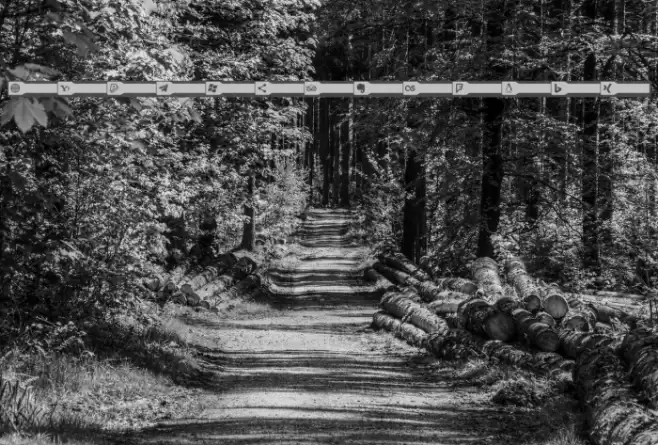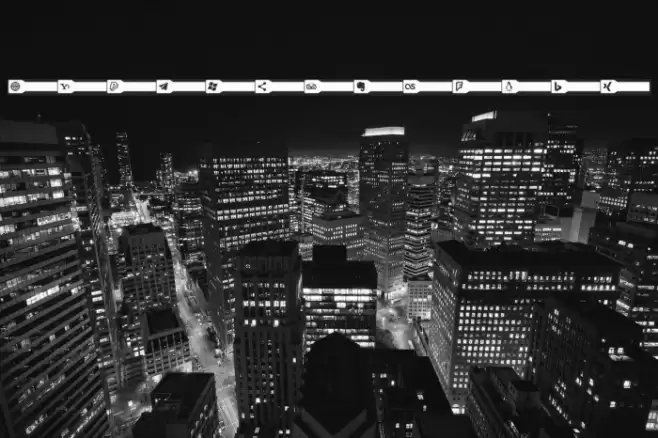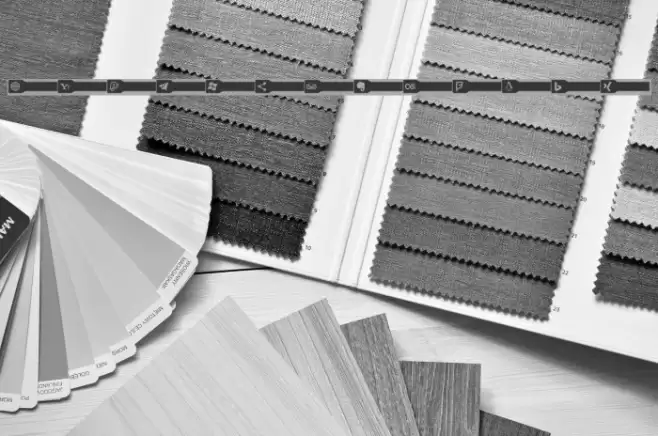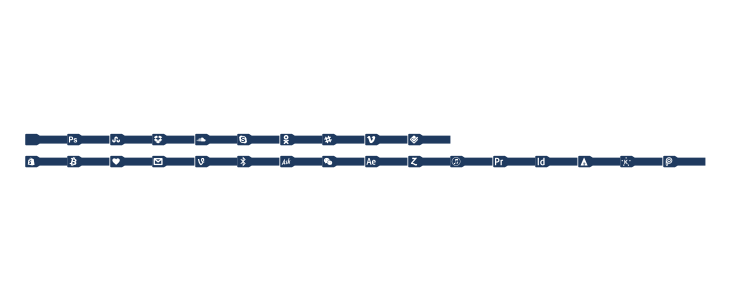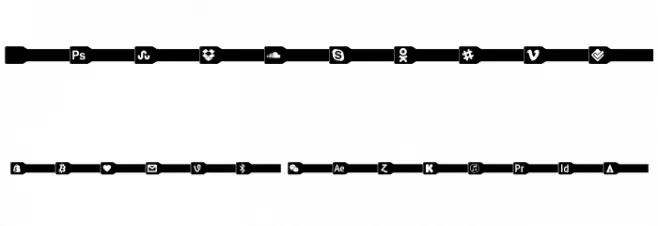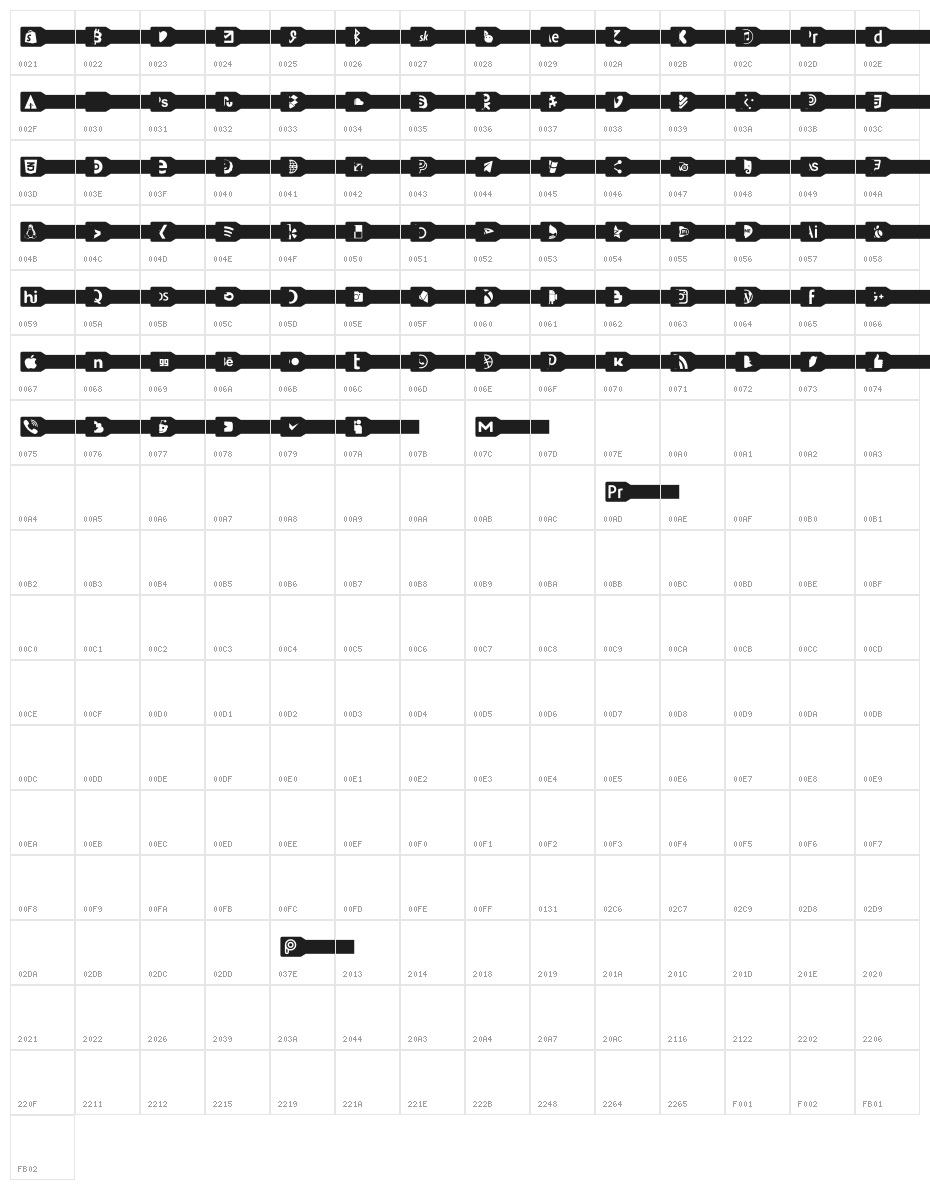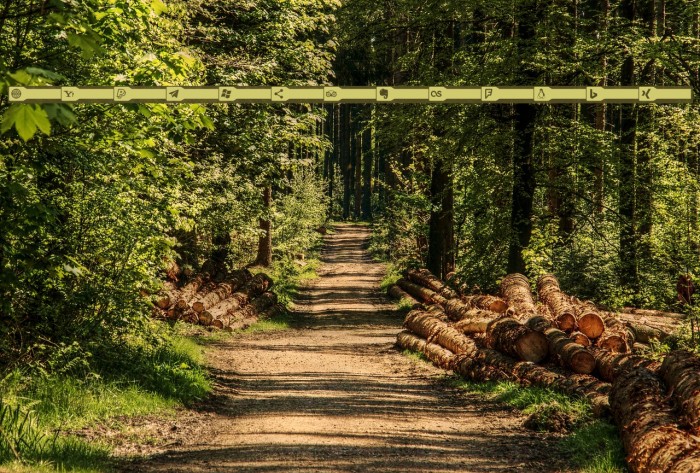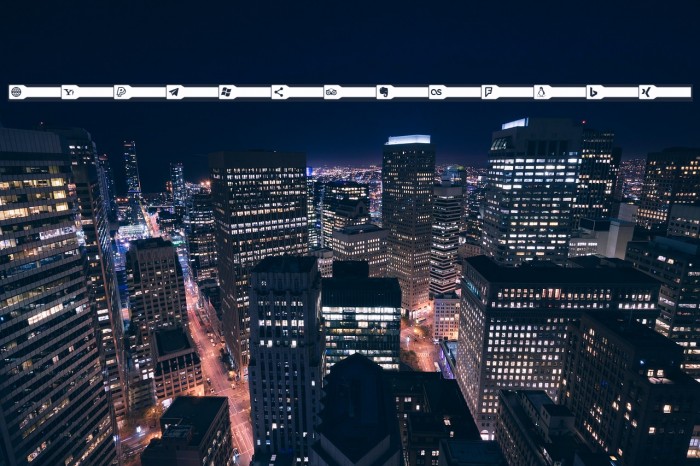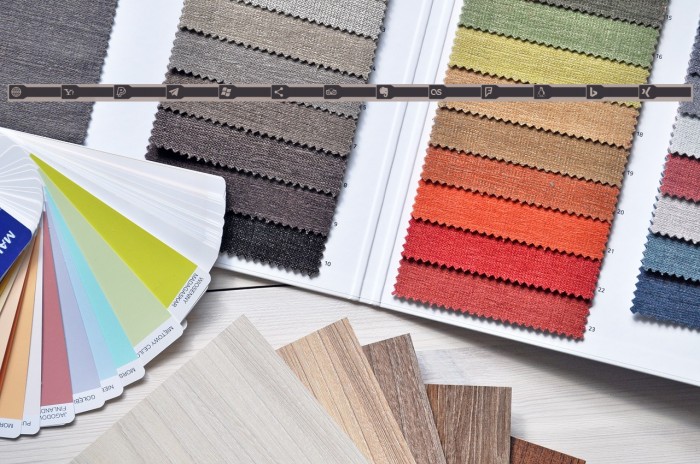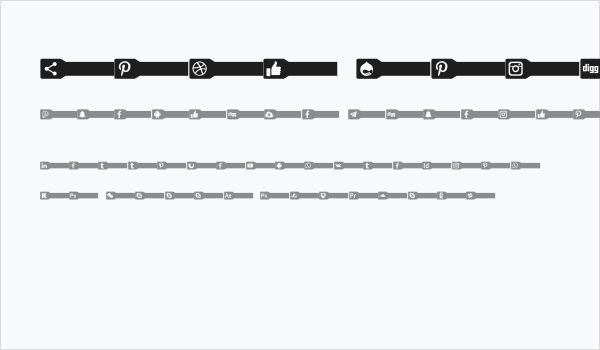
This set features a collection of social media and application icons, each enclosed within a square or circular shape. The icons are designed with a minimalist approach, using solid fills and clear, recognizable symbols. The style is consistent across the set, providing a cohesive look suitable for digital interfaces. The icons are monochromatic, which allows them to be easily integrated into various design projects without clashing with other elements. This collection is ideal for use in web design, app development, and digital marketing materials.
A cohesive set of minimalist social media and app icons in monochrome from Uncategorized fonts.
- Proposed Projects: Ideal for web design, app interfaces, digital marketing materials, and presentations.
- Use Case: Icons, Digital interfaces, Branding